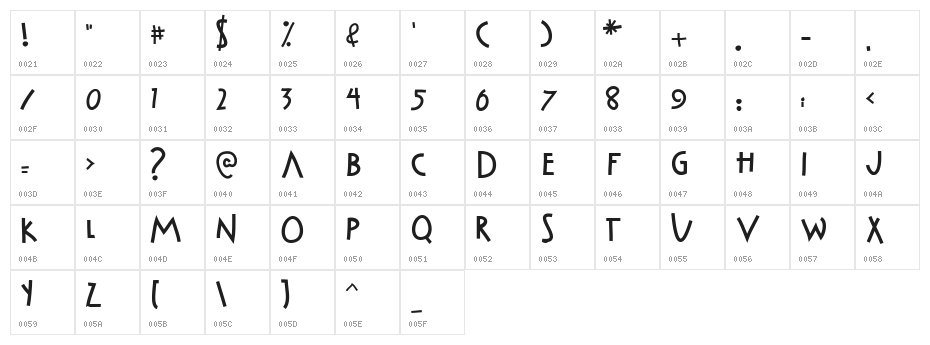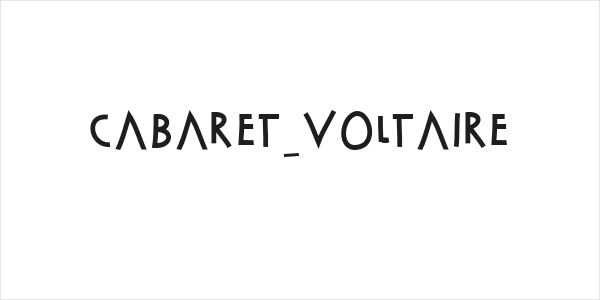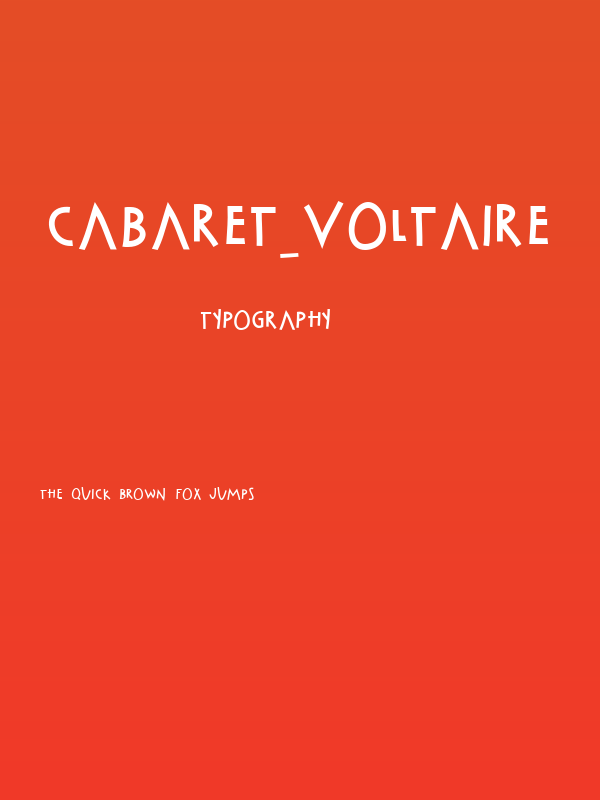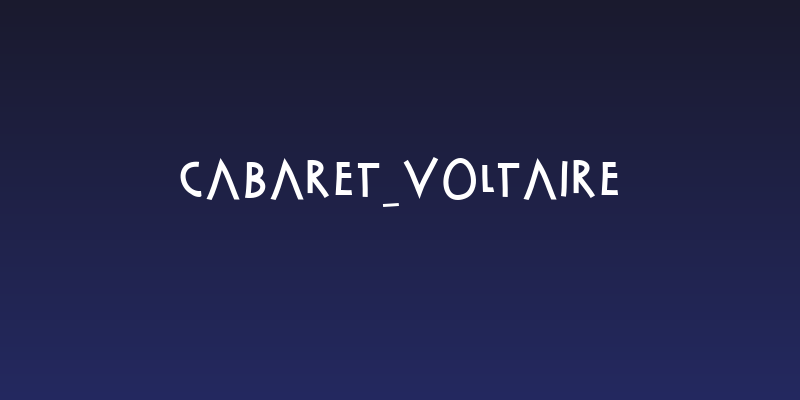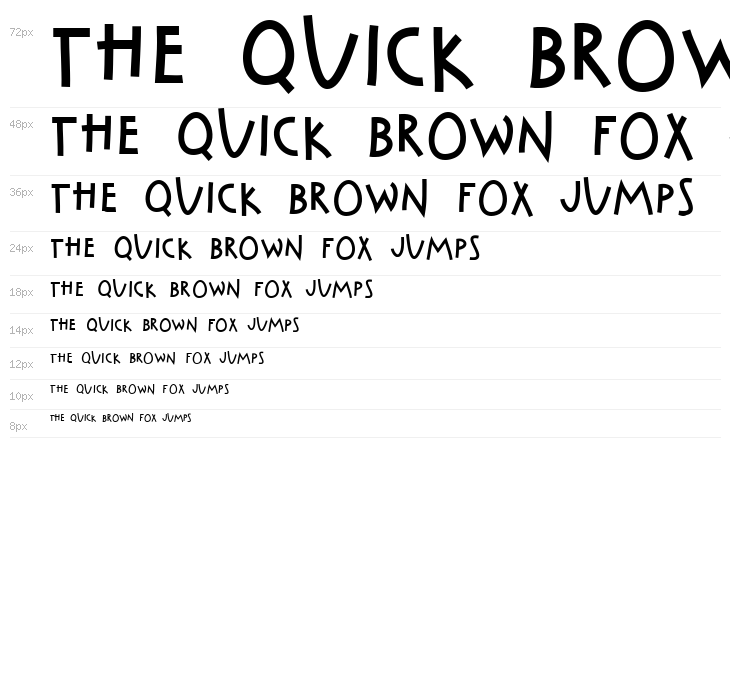
Cabaret_Voltaire Font
Cabaret_Voltaire Description
This font features a unique and artistic style with a playful yet sophisticated appearance. The letters are characterized by their uneven strokes and slightly irregular shapes, giving them a hand-drawn feel. The uppercase letters are bold and prominent, while the lowercase letters maintain a consistent style with a slightly more compact form. The numerals are distinct and easy to read, complementing the overall aesthetic. Special characters are creatively designed, adding to the font's versatility. This font's distinctive style makes it suitable for creative and artistic projects.
| Overall Style | Artistic, Playful |
| Proposed Projects | Ideal for artistic projects, posters, branding, and creative designs. |